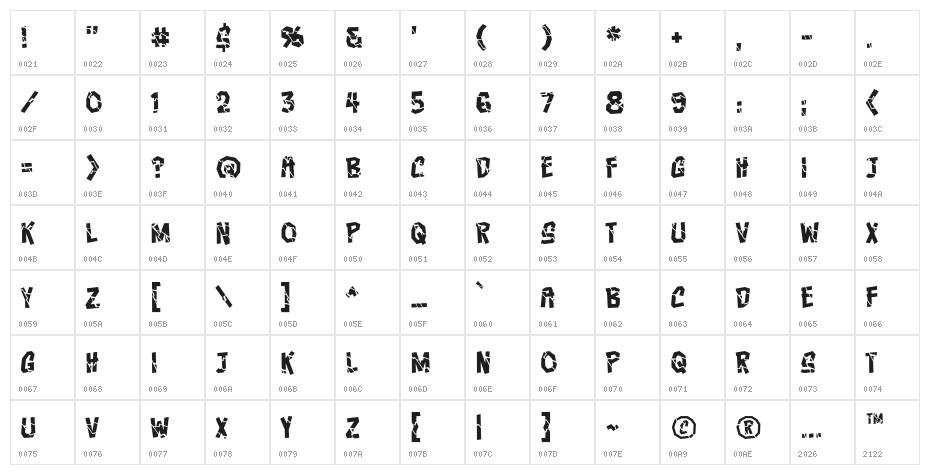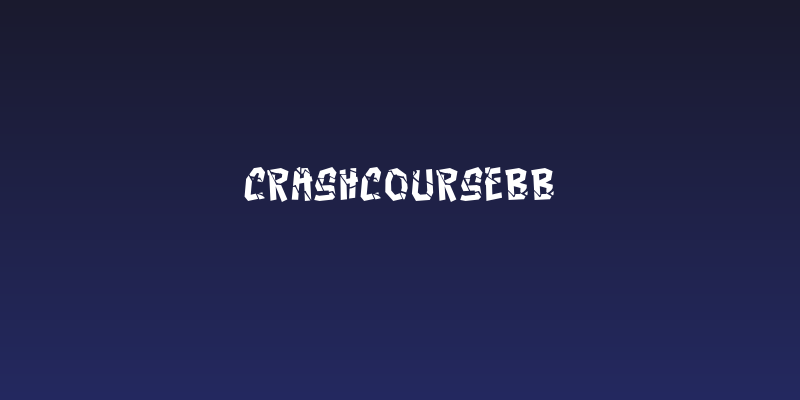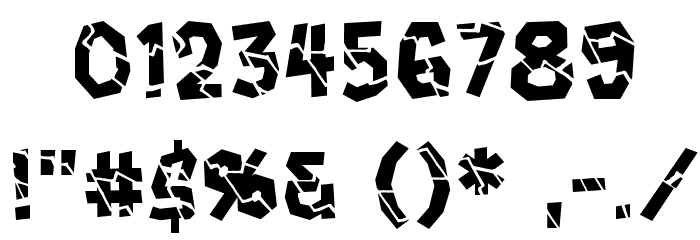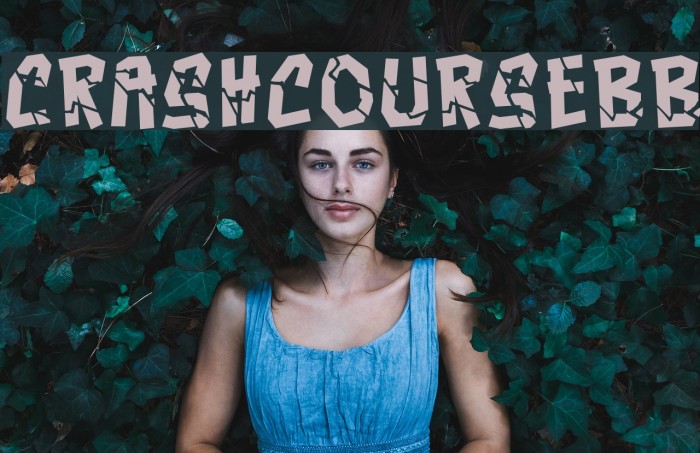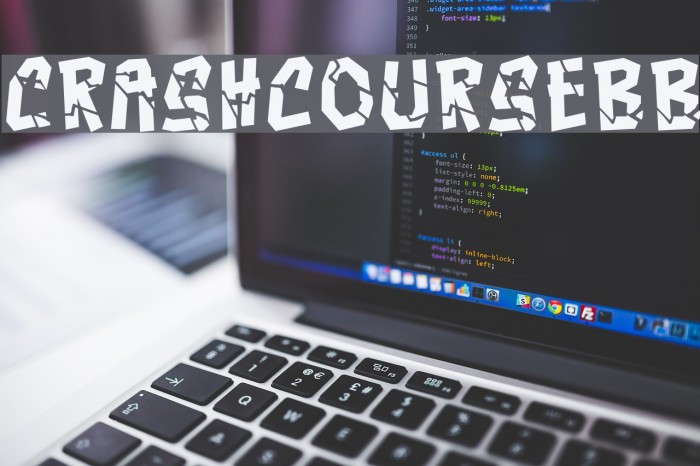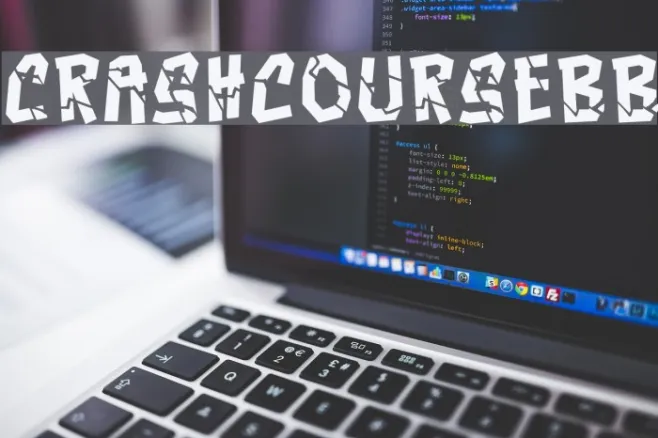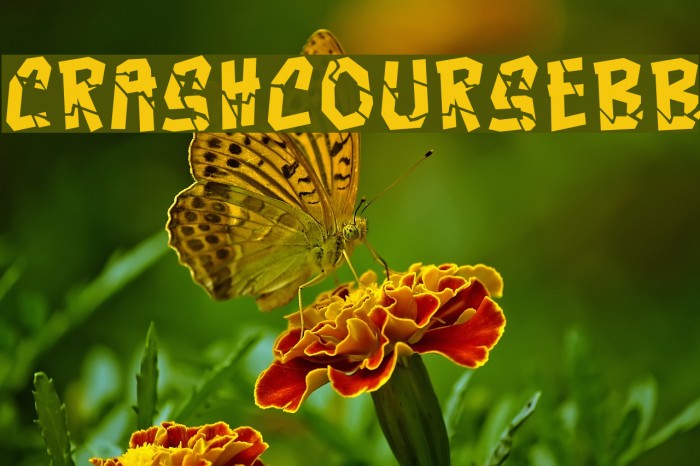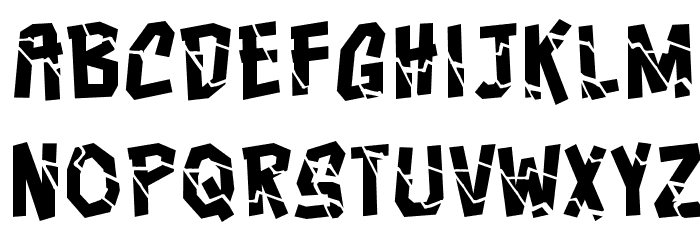
CrashcourseBB Font
CrashcourseBB Description
This font features a bold and fragmented design, with each character appearing as if it's been shattered into pieces. The jagged edges and irregular shapes give it a chaotic and dynamic appearance, making it stand out with a strong visual impact. The uppercase and lowercase letters maintain a consistent style, with numbers and special characters following the same fragmented theme. This font is ideal for projects that require a bold and unconventional look, capturing attention with its unique and edgy aesthetic.
| Overall Style | Modern, Edgy |
| Proposed Projects | Ideal for music album covers, event posters, video game titles, and any creative project needing a bold, edgy look. |